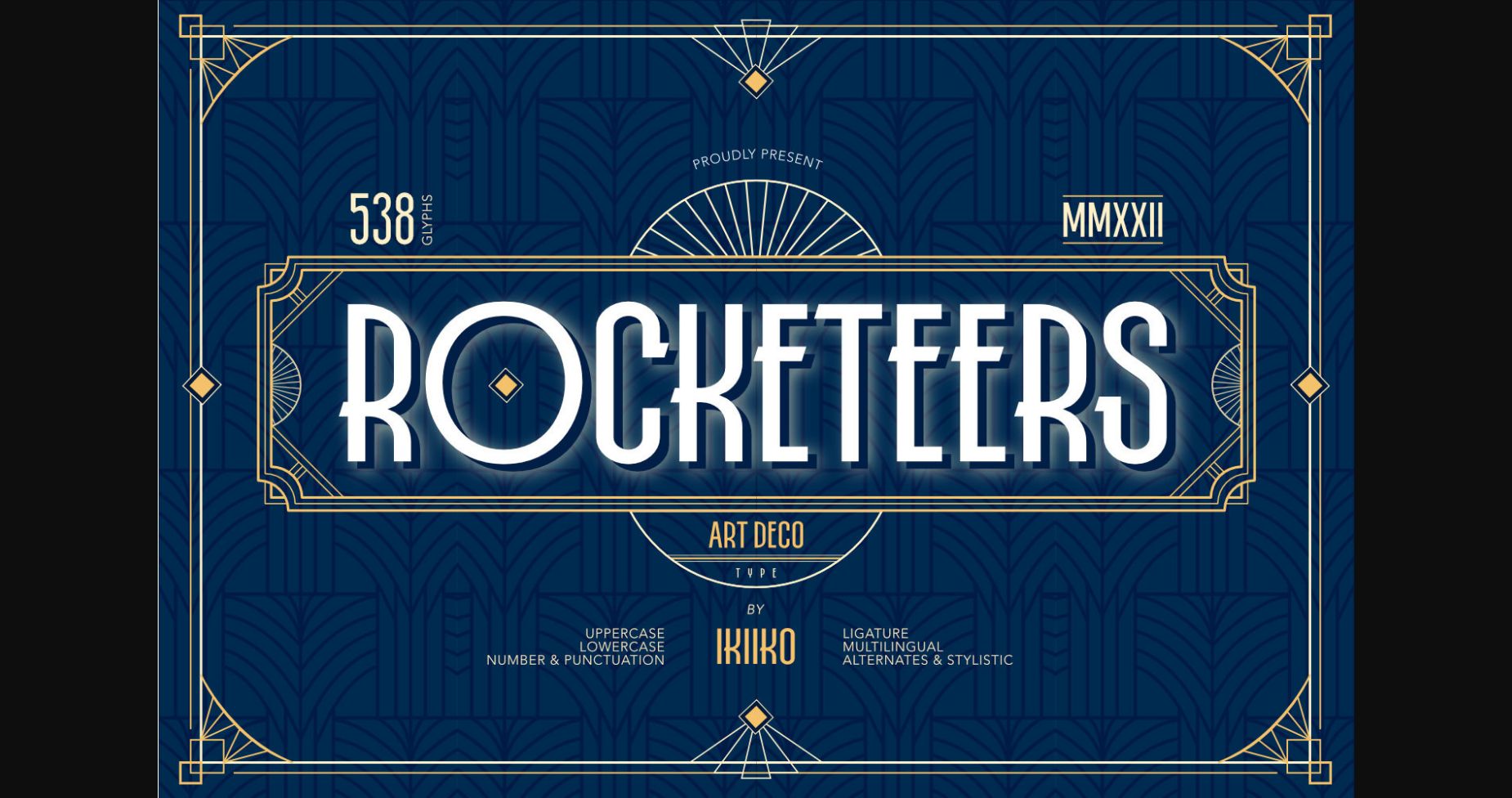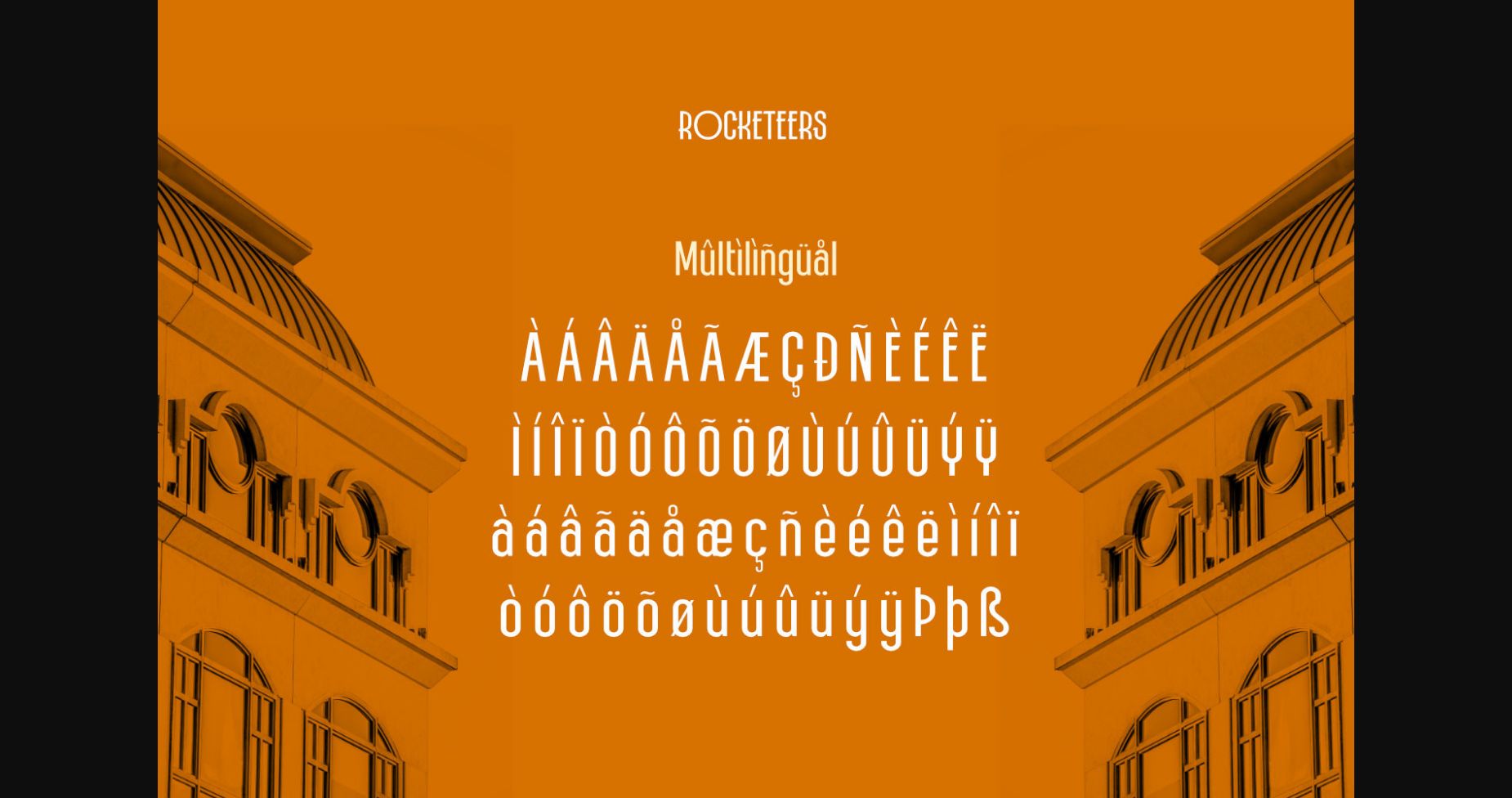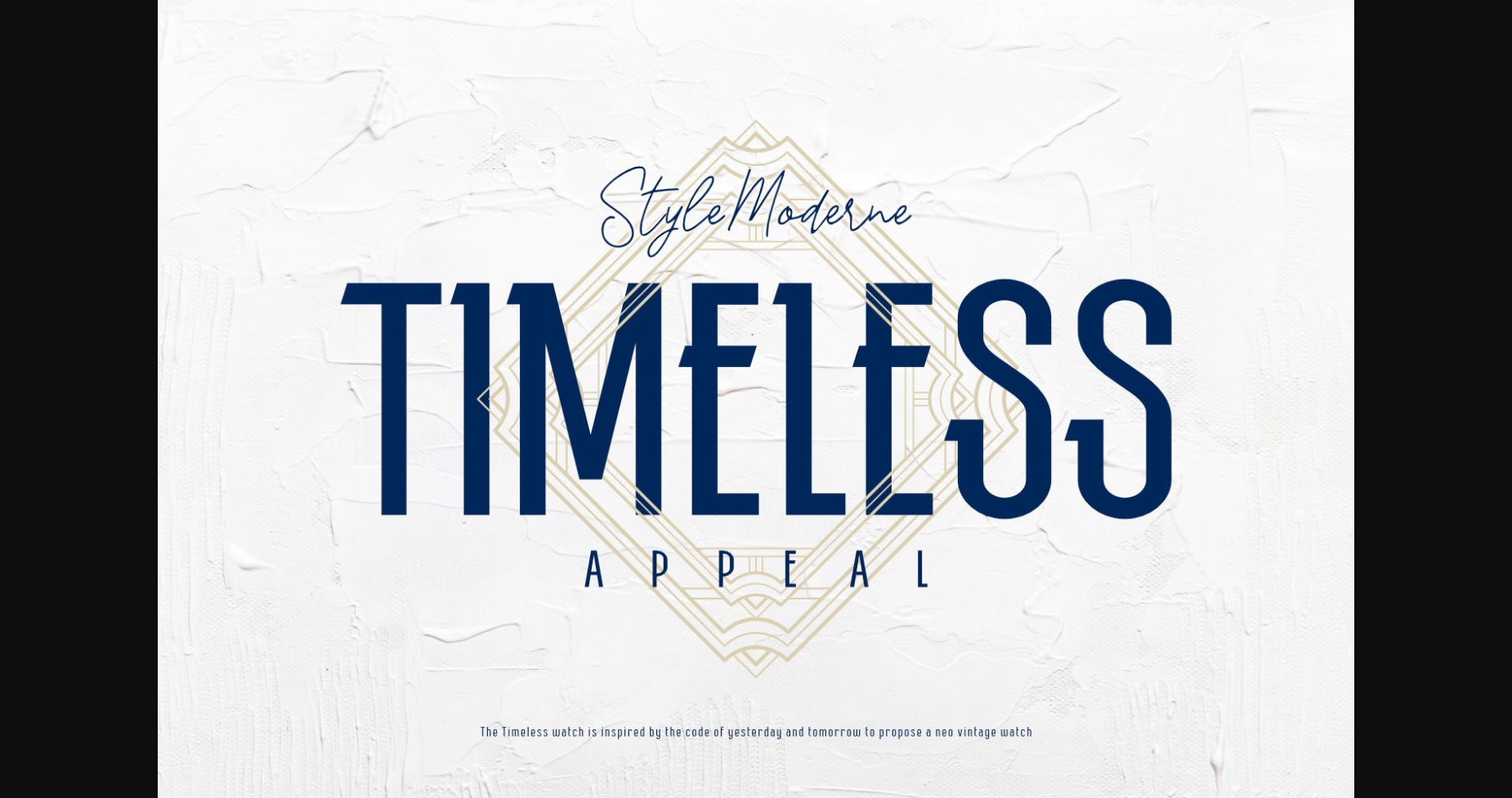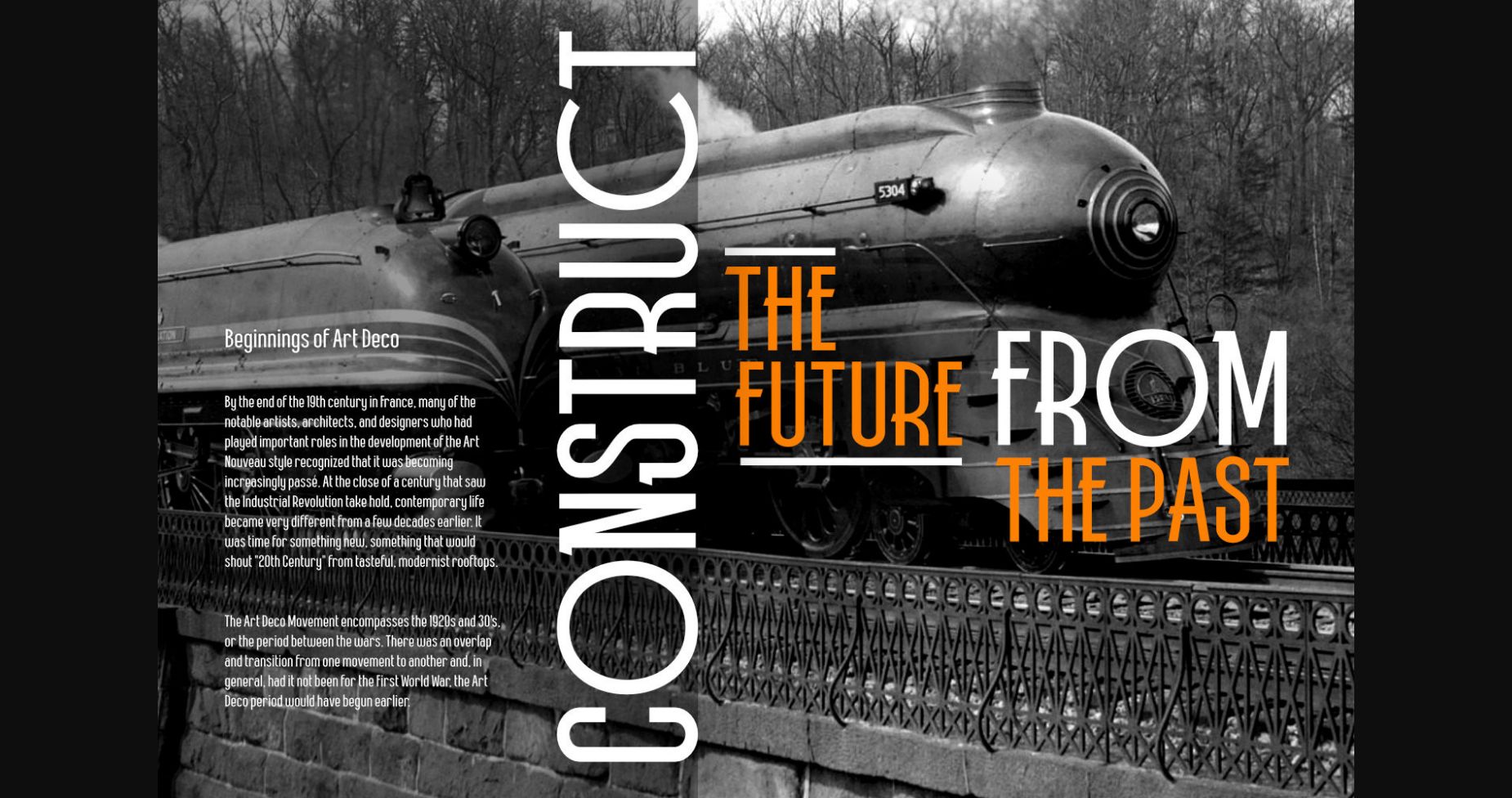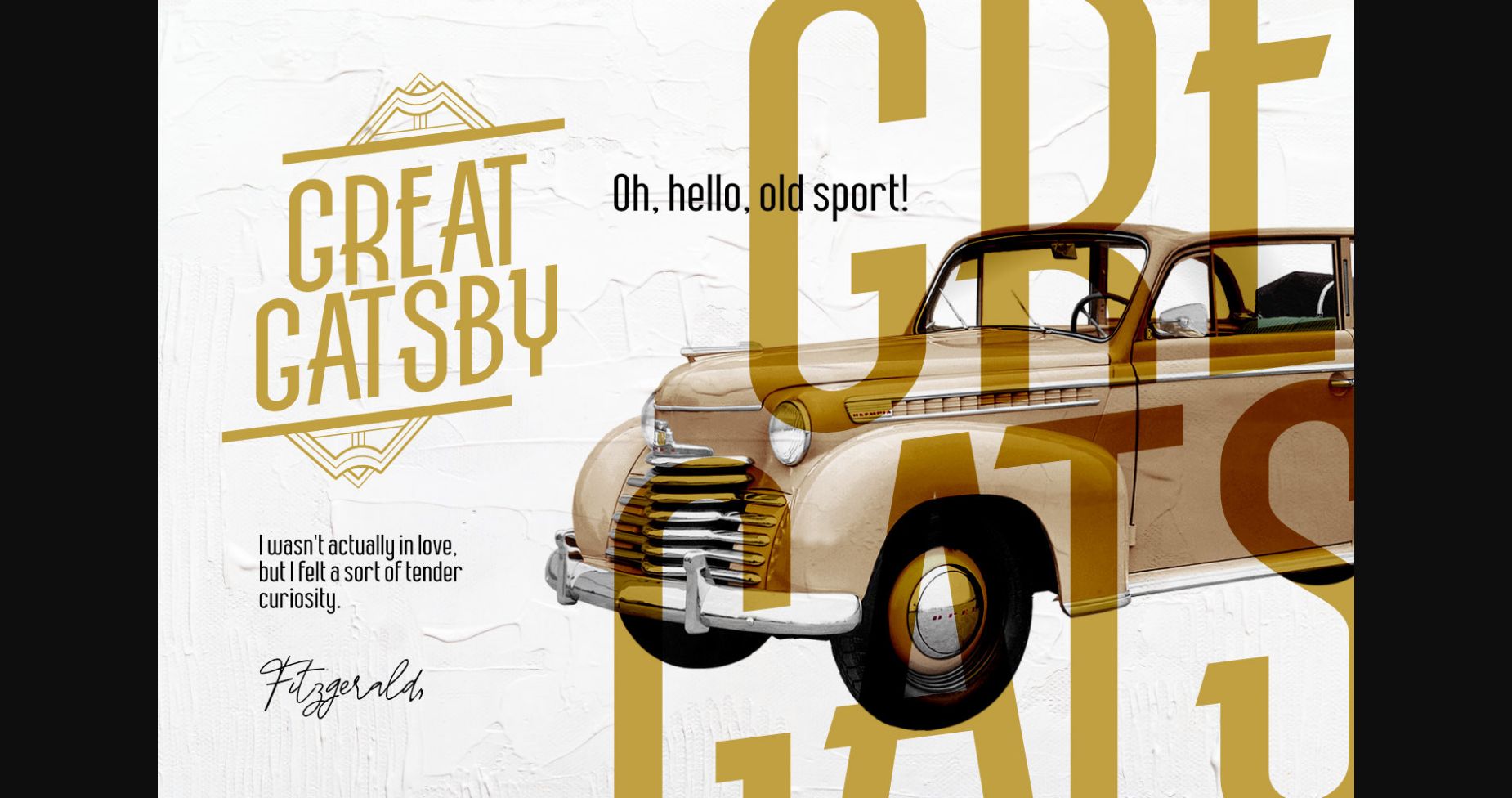
About Rocketeers Font
Rocketeers is a condensed sans serif font featuring simple Art Deco vibes. Inspired by the writing style of the 1930s era. A bold and sturdy aesthetic style characterizes this font. Some alternate styles can be adjusted to explore different shapes.
This typeface is perfect for a brand logo, vintage stuff, fashion, clean design, magazine cover, invitation, poster, flyer, or simply as a stylish text overlay to any background image.